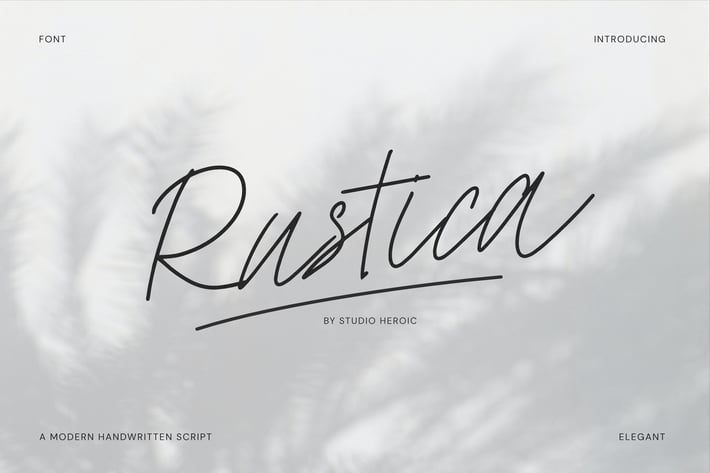
Rustica - Elegant Script Font
Rustica is a elegant script typeface that's perfect for your next branding project. Created with simple & elegant lines. Perfect for your next logo design project, or for creating traditional ad layouts or marketing content.